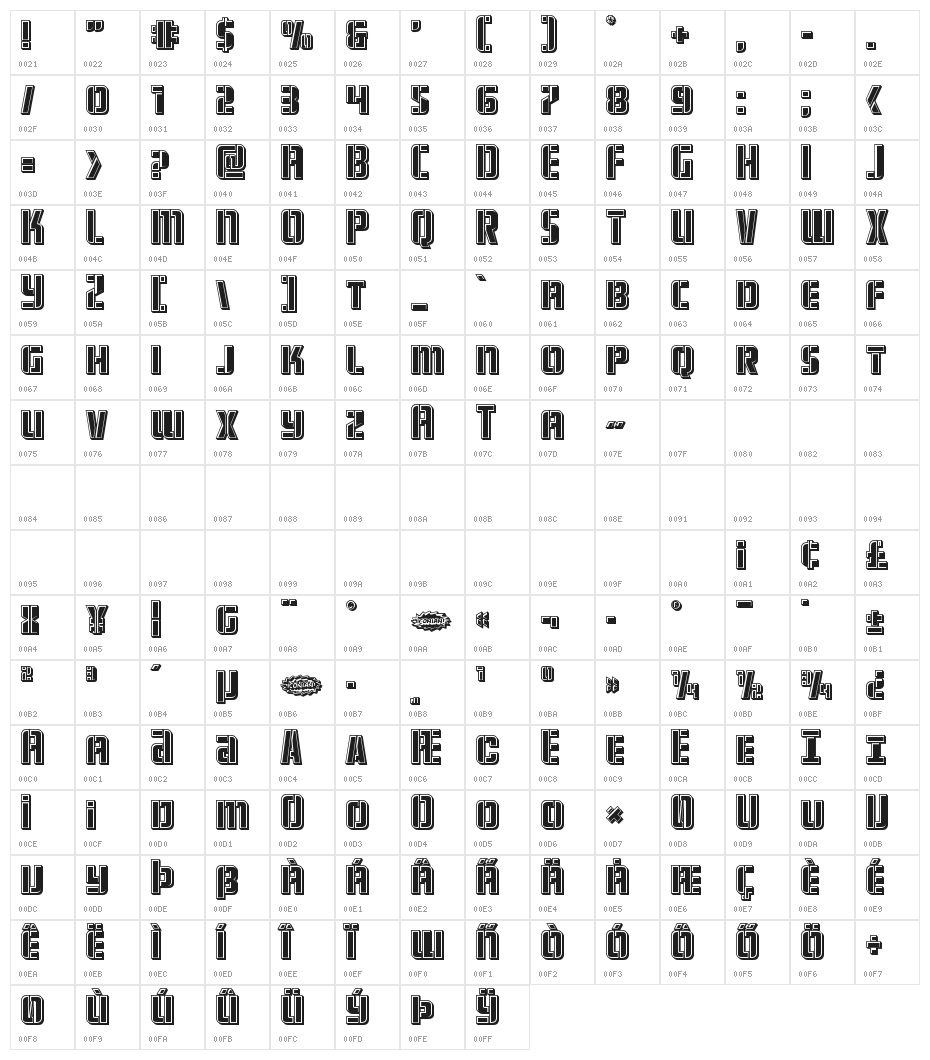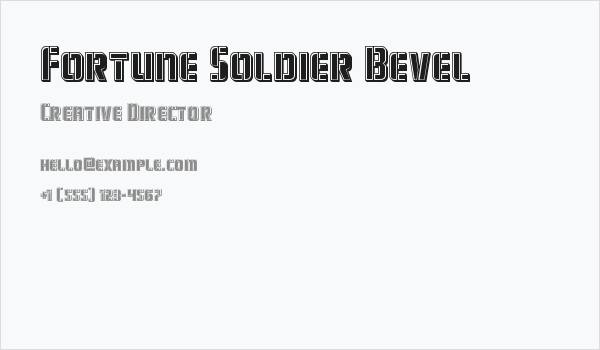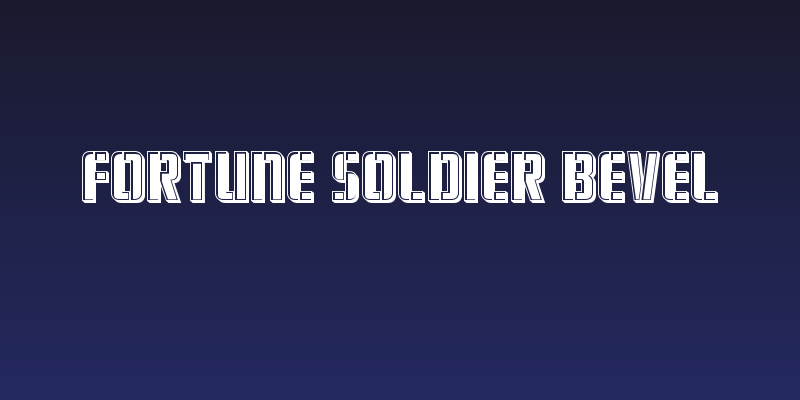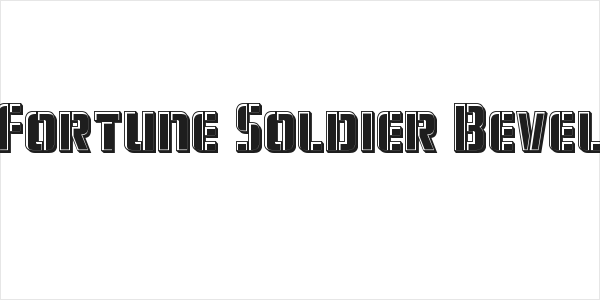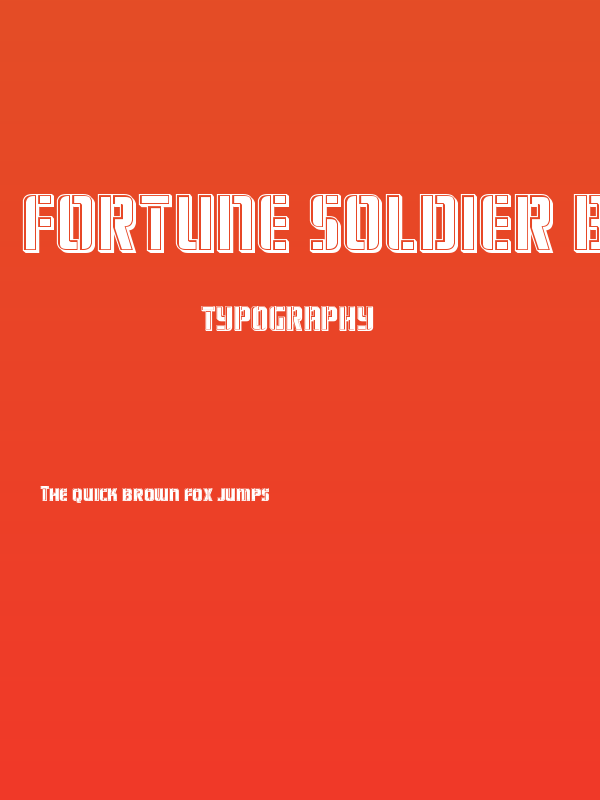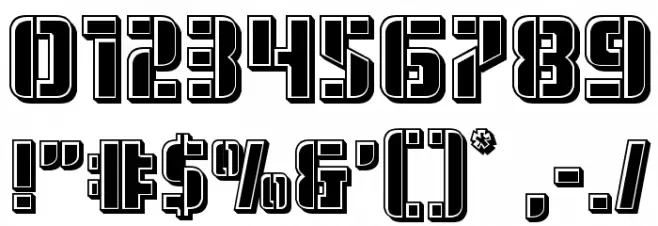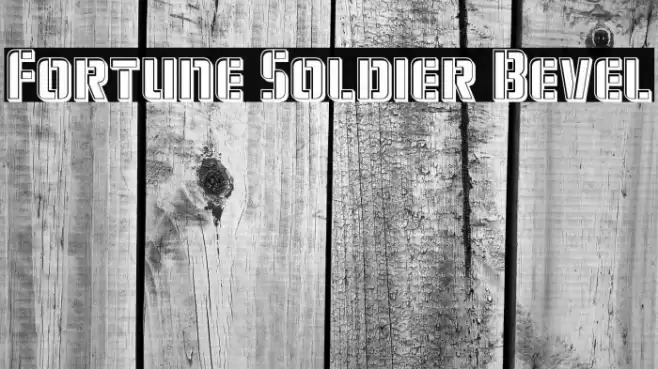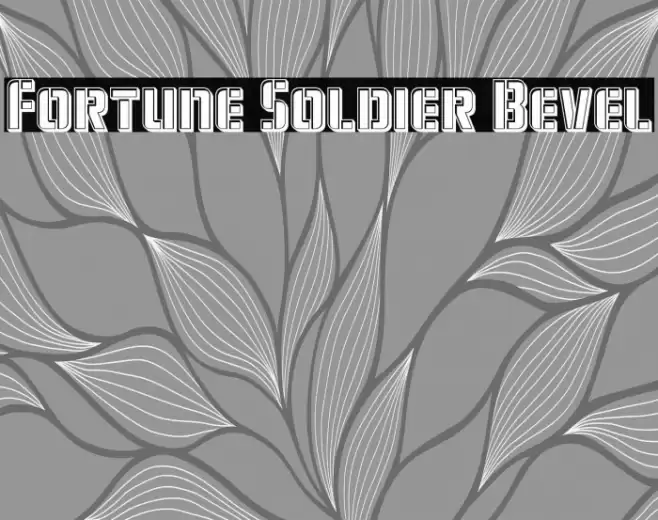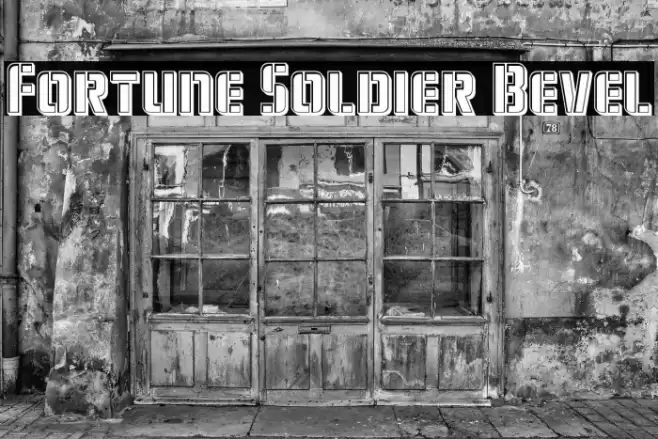
Fortune Soldier Bevel Font
This font features a bold, three-dimensional appearance with a beveled edge, giving it a strong and impactful look. The characters are uppercase and have a blocky, geometric style that is consistent throughout the alphabet, numbers, and special characters. The design incorporates a shadow effect that enhances its depth, making it stand out prominently. The font's structure is rigid and uniform, with each character maintaining a consistent width and height, contributing to its cohesive and professional appearance. The boldness and distinct style make it suitable for attention-grabbing designs.
| Proposed Projects | Ideal for posters, logos, headlines, and any design requiring a strong visual impact. |